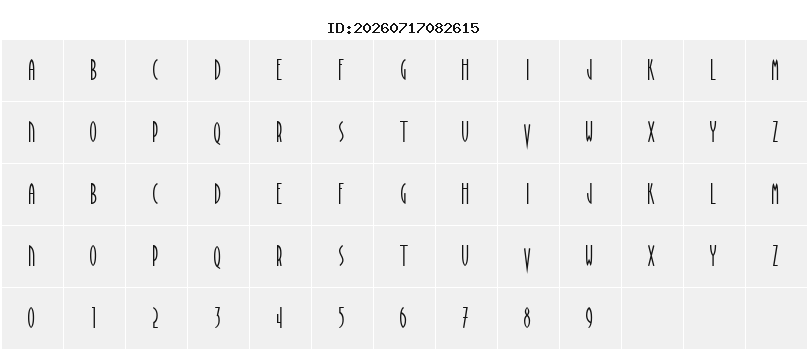
BraveWorld Preview
• Font Name: BraveWorld
• Full Font Name: BraveWorld
• Copyright: ©1996 Ethan Dunham ‐ Fonthead Design
About BraveWorld.ttf
BraveWorld.ttf is a modern, elegant sans-serif font designed for ultimate readability and visual harmony. Perfect for branding, headlines, web design, and print materials.